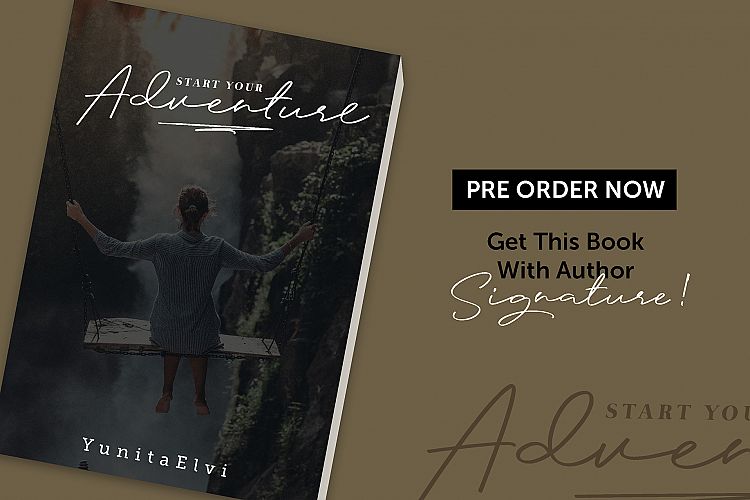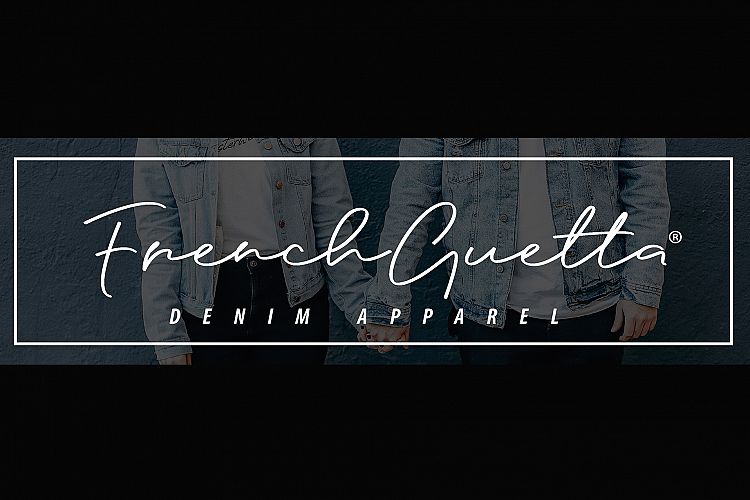
Anjel Signature Font
This is a stylish, fresh new handwritten signature script with a classy touch, it’s perfect for your latest project. Introducing Anjel Font. Anjel Font designed and shared by Mas Anis. Anjel Signature Font is a fashionable signature that contain lowercase, uppercase, symbol, and also support multi language. There’s a lot ligatures in this font, also already PUA Encoded. Anjel also comes with swash font that you can use to make a logo for branding, Anjel is the great choice for watermark on photography, signature or signature logo design, quotes, album cover, business card, and many other design project.Anjel was made with heart to elevate your work to the highest level.